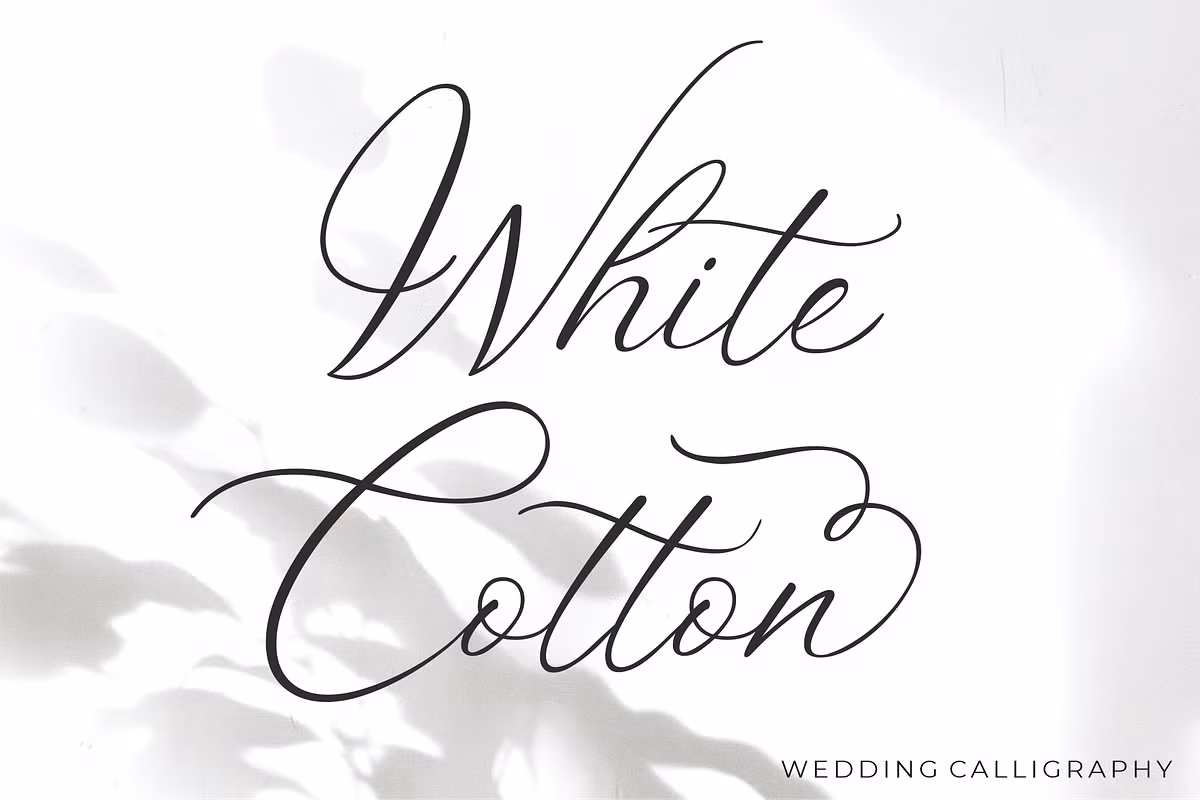
Please note that you must purchase this font for commercial use. You can download White Cotton – Wedding Font for free, strictly for personal testing purposes only. White Cotton is an elegant and romantic handwritten font designed specifically for wedding-themed designs. With its graceful curves, smooth strokes, and sophisticated flow, White Cotton Wedding Font Free Download is perfect for invitations, save-the-dates, bridal shower cards, wedding menus, and other special event designs.
This font exudes a timeless elegance, making it ideal for formal events that require a personal, luxurious touch. It includes uppercase and lowercase letters, numerals, punctuation, and multilingual support, offering flexibility for a wide range of global projects.
Whether you're designing a custom wedding invitation or creating elegant event branding, White Cotton brings beauty, charm, and a touch of romance to your typography.